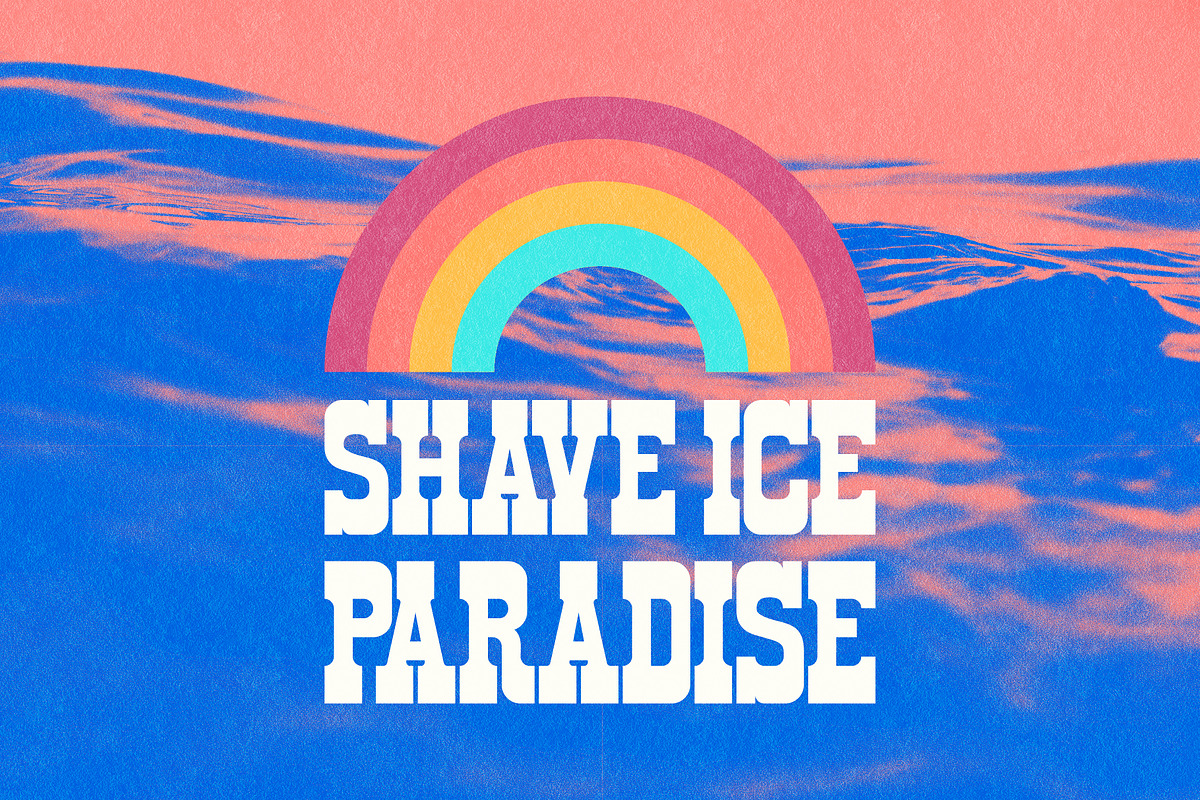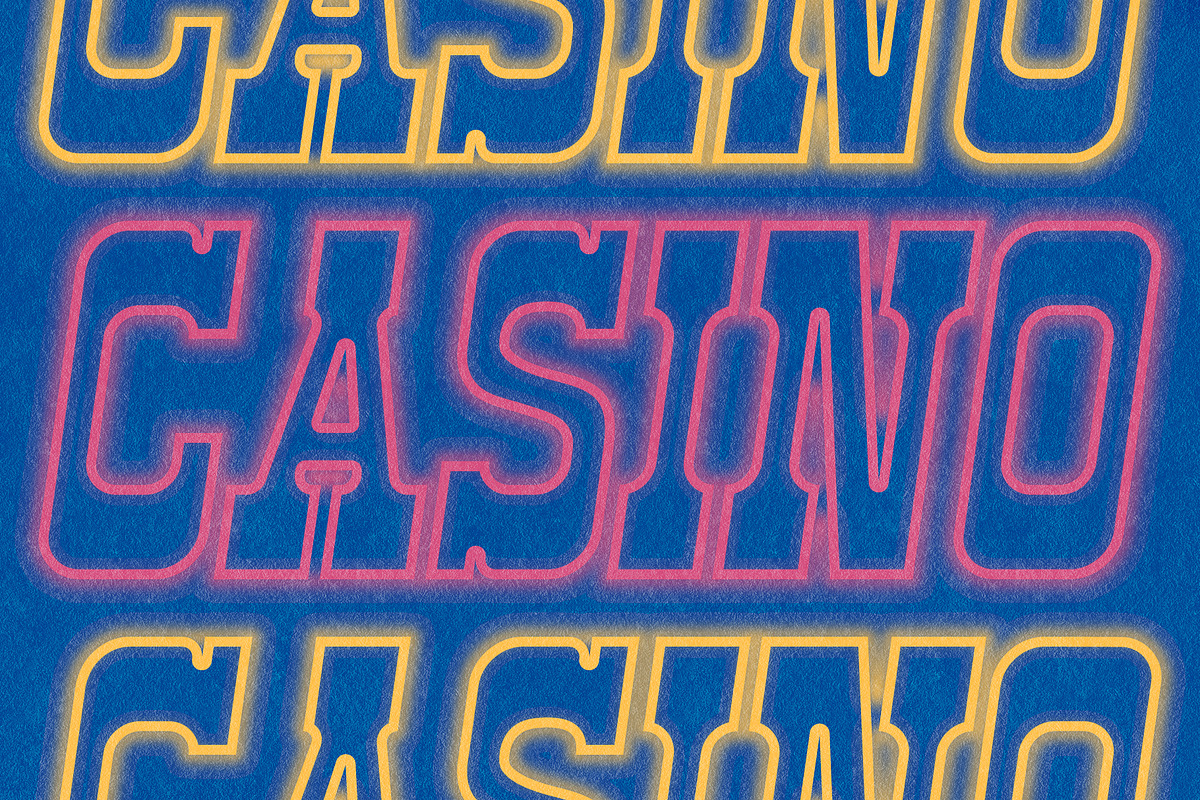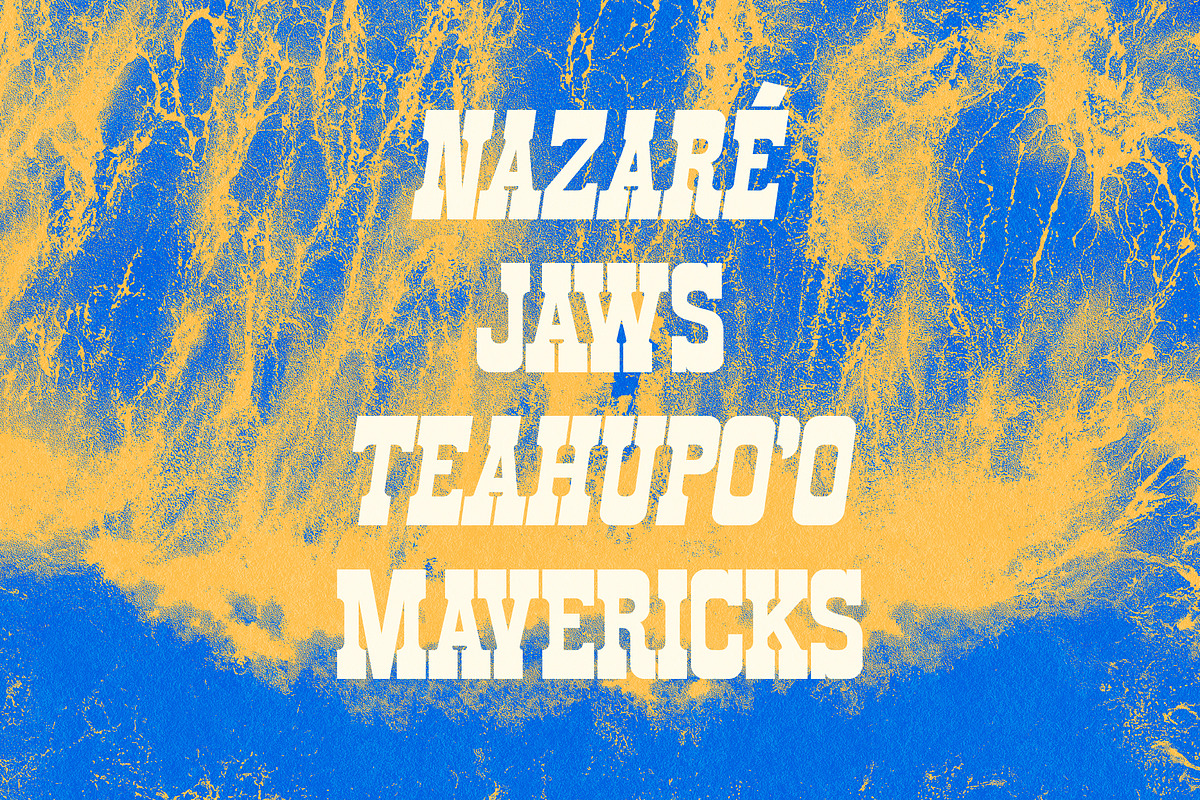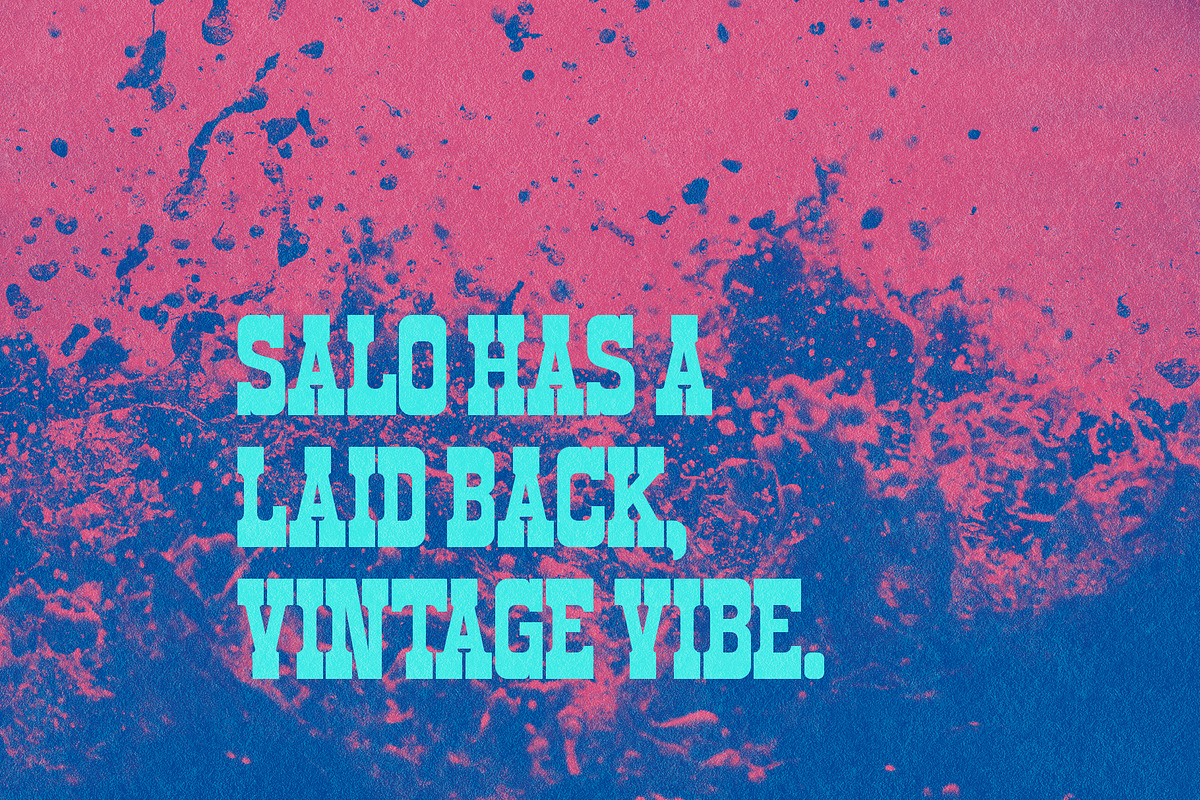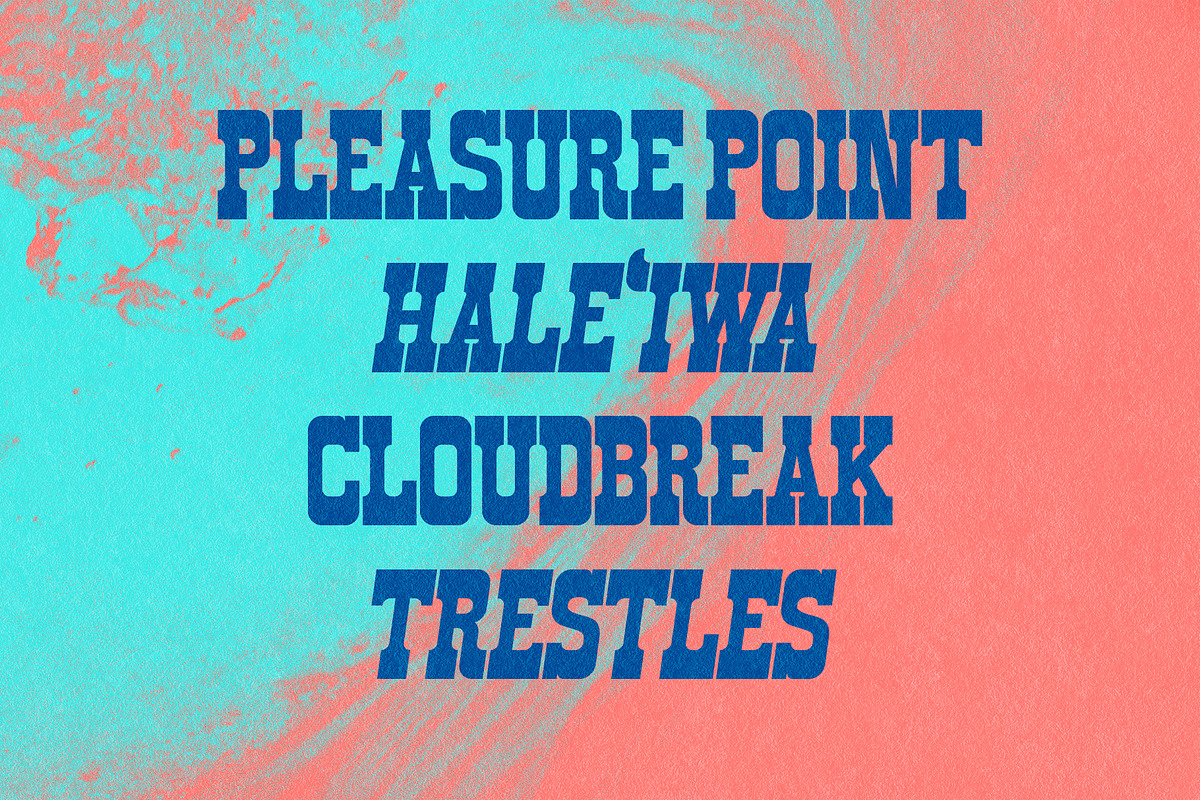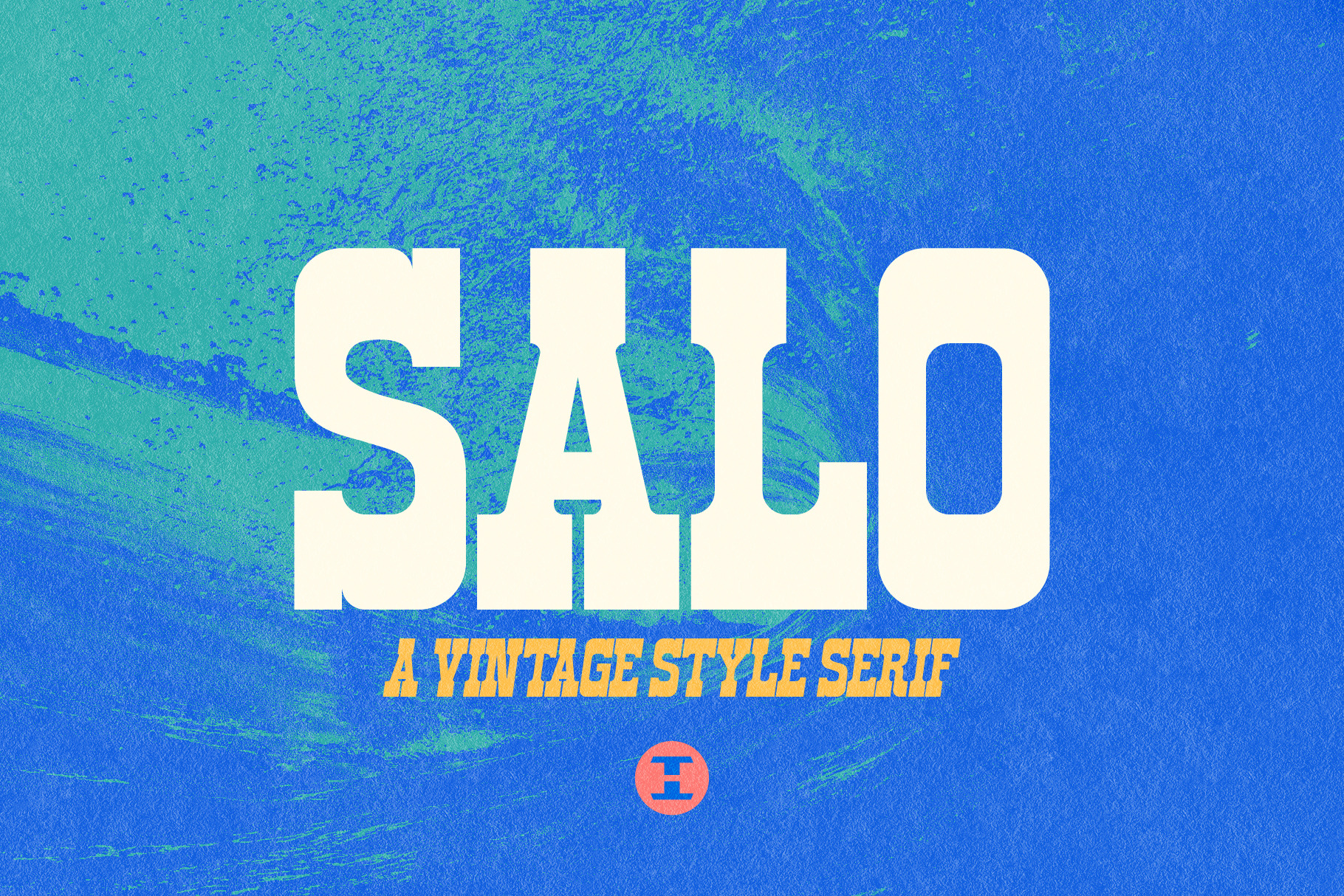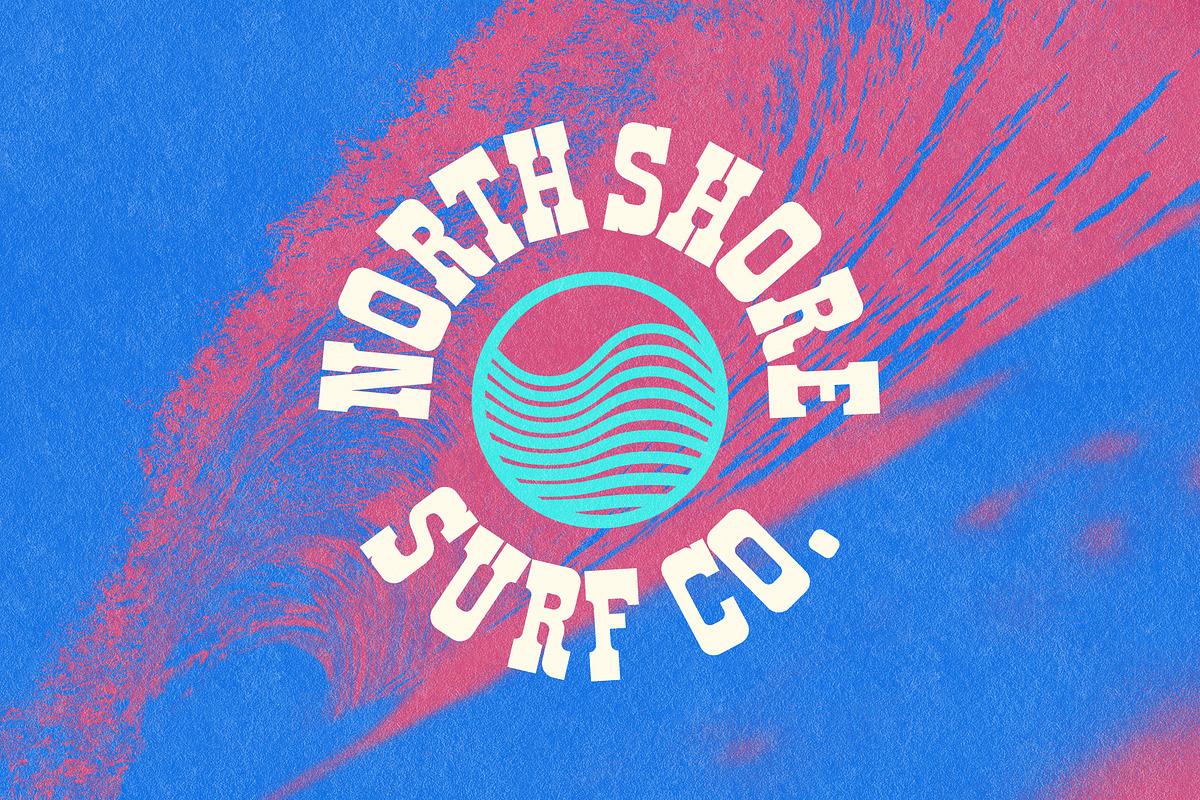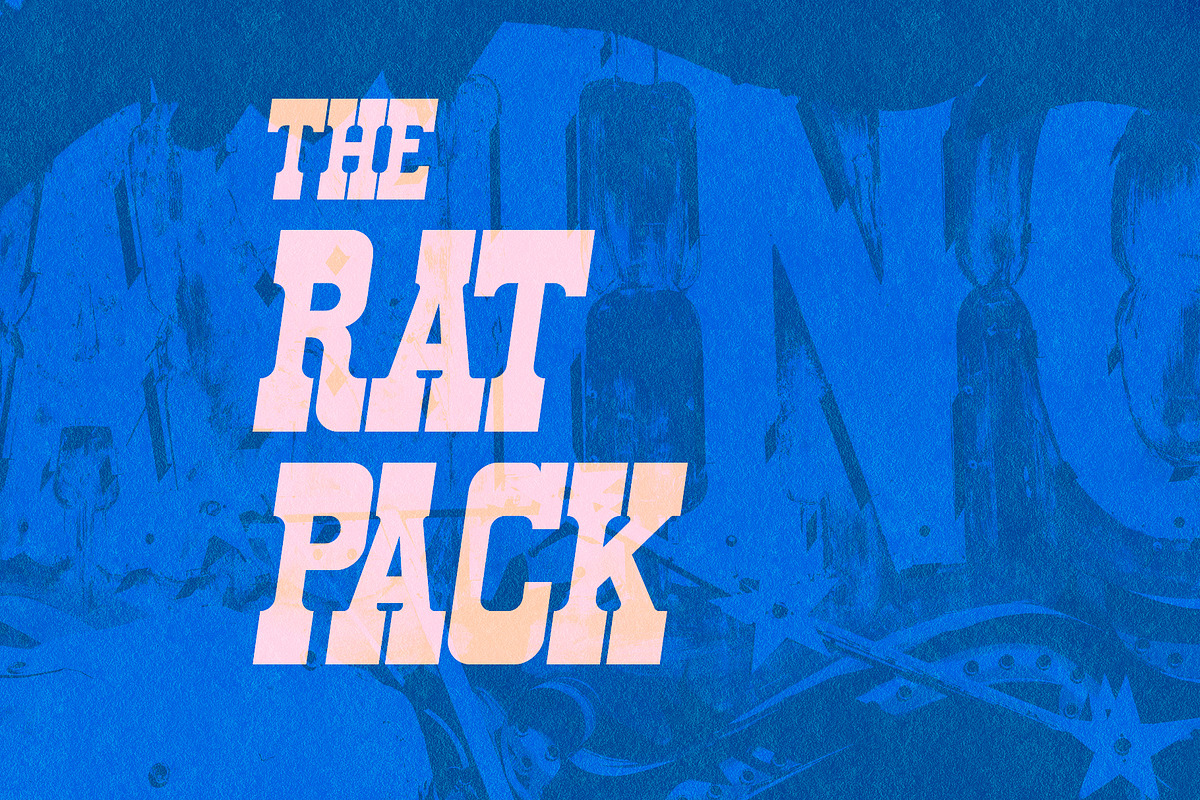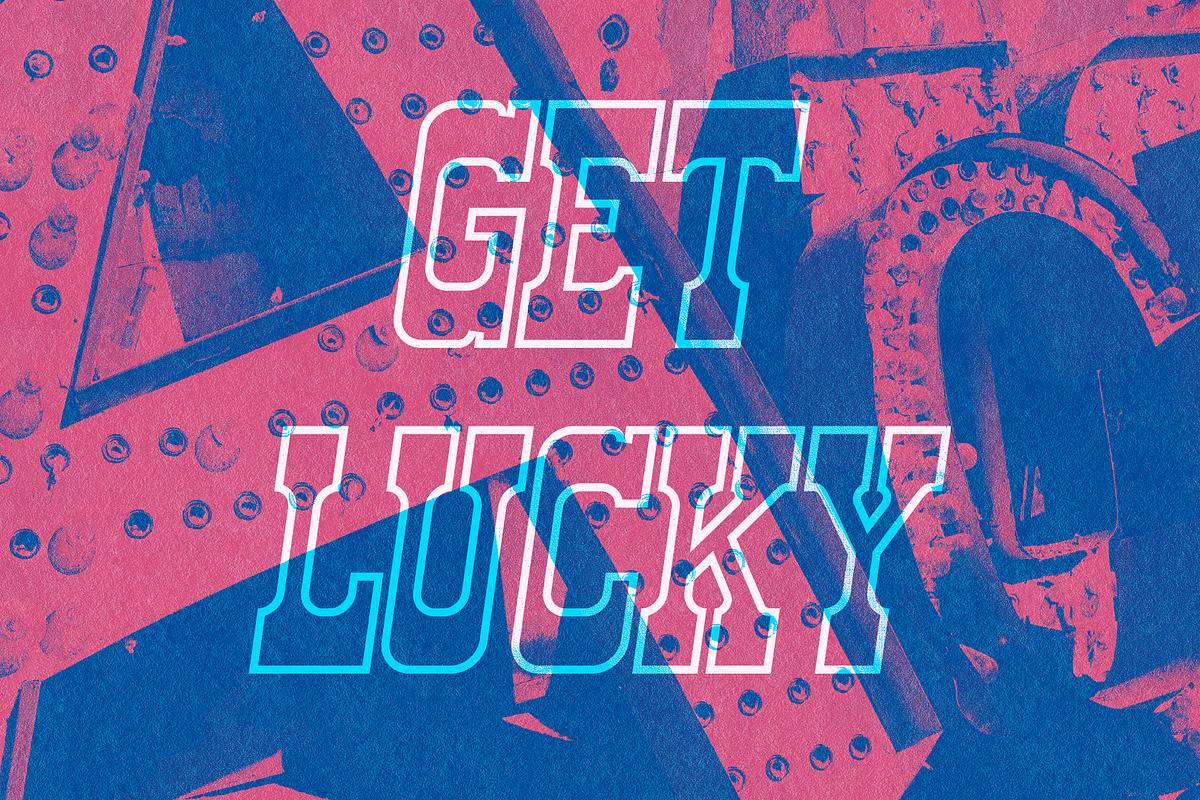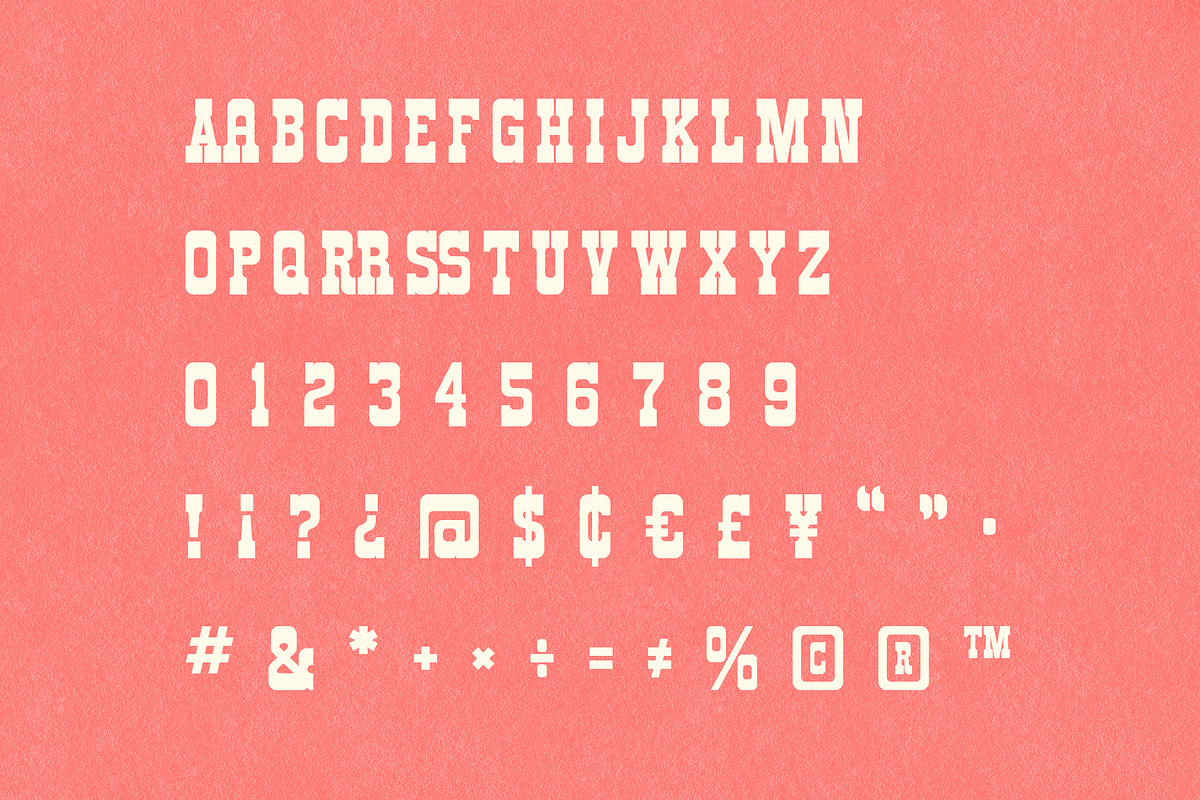
Salo - Display Font
Salo is Latin for surf. It’s heavily inspired by one of my favorite places in the entire world, the North Shore of Oahu in Hawaii. There are great beaches, great surfing and especially great shave ice. I was inspired to create Salo from the type I saw on a saltwater-weathered sign at a shave ice place in Haleiwa.
Salo Regular has a laid back style that could easily be found in a surf shop’s logo, a country album cover or a vintage sign. Salo Italic has a bit more energy to it than Salo Regular with its forward lean. Salo has a nice mix of what I like to call “contemporary heritage” – it works well in modern applications, but wouldn’t look out of place in something you might have seen in Southern California in the 1960s or Las Vegas in its heyday.
- 2 Styles - Regular and Italic
- Standard English Alphabet
- Numerals, Currency Symbols, Standard Punctuation, Diacritics